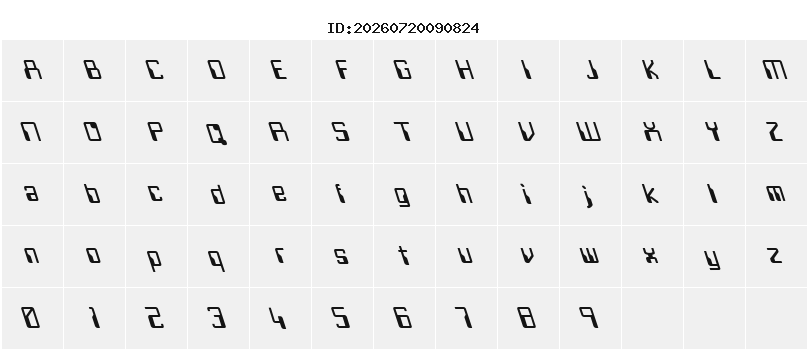
• Font Name: Future Lefty Italic
• Full Font Name: Future Lefty Italic
Future Lefty Italic.ttf is a modern, elegant sans-serif font designed for ultimate readability and visual harmony. Perfect for branding, headlines, web design, and print materials.